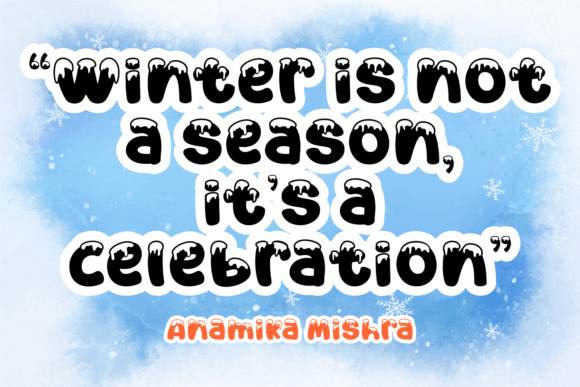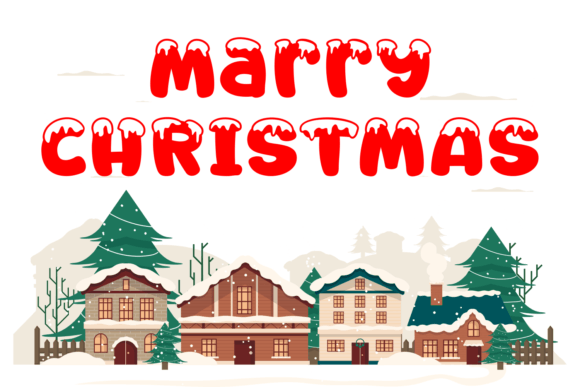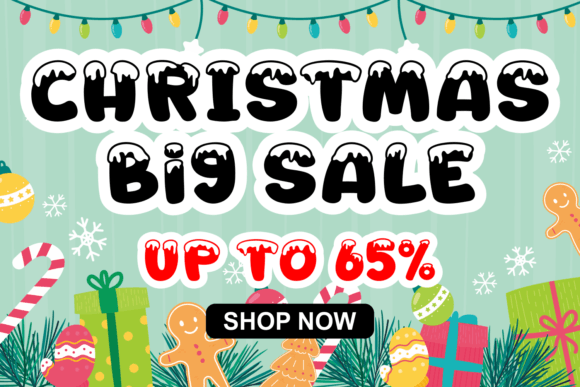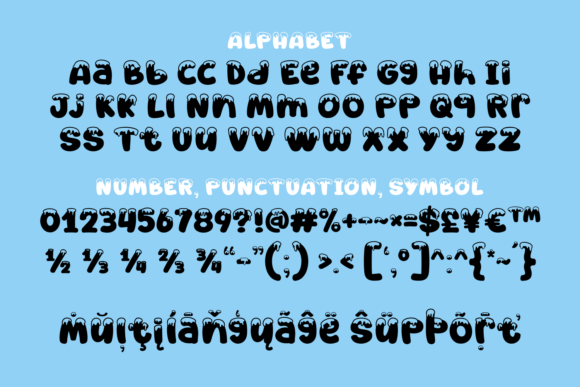
Introduction to Playful Snowy Font
As a designer, there’s nothing quite like the rush of excitement when you stumble upon the perfect font for your next creative project. For me, that moment came when I discovered the enchanting Playful Snowy Font. Its whimsical charm and delicate design elements immediately captured my heart, and I knew I had to share it with fellow designers and crafty enthusiasts.
Whether you’re working on a Christmas-themed craft, designing a digital presentation, or creating greeting cards for loved ones, the Playful Snowy Font is sure to add a touch of magic to your project. Its high-quality design and transparent background make it a versatile resource for any creative endeavor.
- High-quality design resource perfect for creative projects, including invitations, greeting cards, and more.
- Unique, hand-drawn design with a playful and whimsical feel, ideal for adding a touch of personality to your design work.
- Transparent background, allowing for easy layering and customization in your creative project.
- High-resolution design, suitable for printing at 300 DPI or higher, ensuring crisp and clear results.
- Available in multiple font sizes, from 12 to 72 points, for flexible use in various design contexts.
- Perfect for designers looking for a fun and creative design resource to elevate their work, including graphic designers, digital artists, and crafters.
Honest Review: Playful Snowy Font
As a designer, I’m always on the lookout for unique and high-quality fonts to elevate my creative projects. The Playful Snowy Font caught my eye, and I was excited to give it a try.
Here’s what I liked: ✨ The font is incredibly easy to download and use, thanks to its transparent background. This makes it a breeze to incorporate into any design project. The font itself is also incredibly versatile, with a range of styles and weights to choose from.
Some of the key features I appreciate about the Playful Snowy Font include:
- Transparent background for seamless integration into designs
However, I did encounter some limitations: ⚠️ The font can be a bit tricky to read at smaller sizes, and the weights can sometimes feel a bit inconsistent.
Overall, I’d say the Playful Snowy Font is a great addition to any designer’s toolkit. While it may not be perfect, its unique style and high-quality design make it a valuable resource for any creative project. With a bit of experimentation, I’m confident that designers can get the most out of this font.
The Playful Snowy Font is ideal for creative projects that require a high-quality, unique design element. It’s perfect for use in digital design, print design, and even web design. Some common use cases include:
- Birthday invitations and party decorations
- Branding and marketing materials
- Blog posts and articles
To get the most out of the Playful Snowy Font, consider the following tips:
- Use it in combination with other design elements to create a cohesive look
- Experiment with different font sizes and styles to add visual interest
- Use the transparent background feature to create a sense of depth and layering